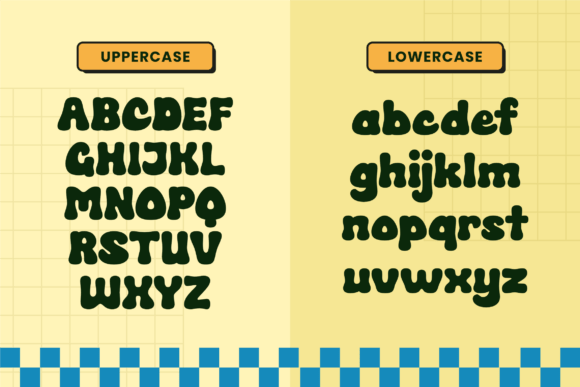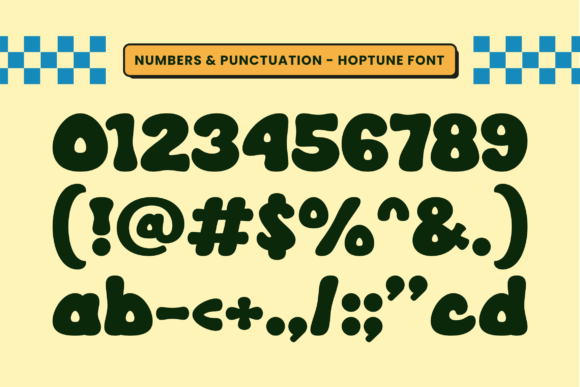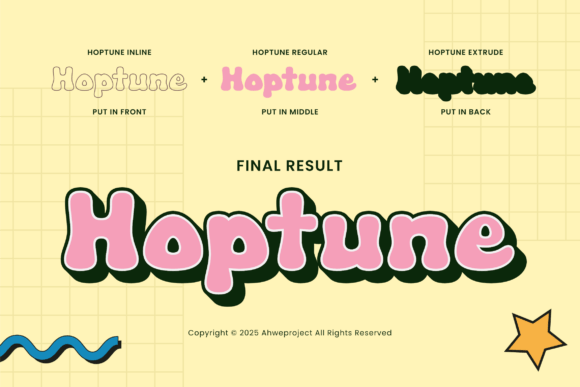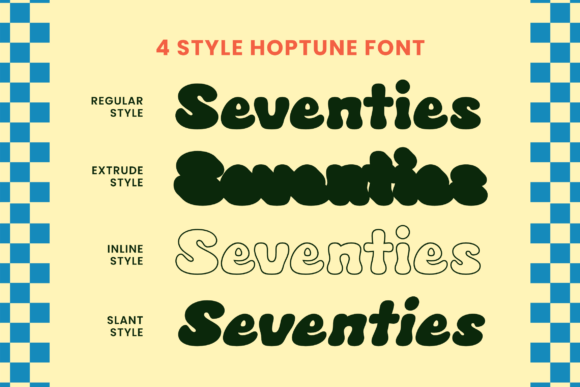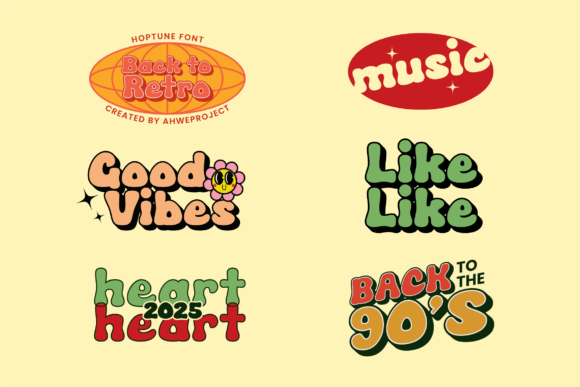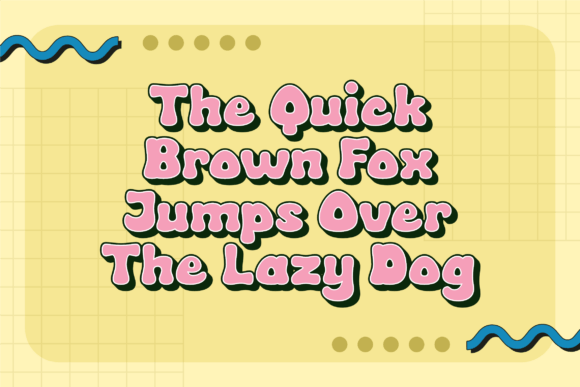
The Perfect Blend of Nostalgia and Fun: Introducing Hoptune Font
Do you remember the thrill of rummaging through your grandparents’ attic, uncovering old records and vinyls, and feeling like you’ve stumbled upon a treasure trove of forgotten memories? For designers, that feeling can be recreated with the right font – and we’re excited to introduce the Hoptune Font, a vibrant retro bold font that captures the charm of the ’70s and ’90s in a fun, bubbly style.
With its chunky curves, playful vibe, and bold shadow, Hoptune Font is the perfect addition to any design project. Whether you’re creating branding, posters, packaging, or children’s projects, this font is sure to bring a pop of joyful energy to your work. As a designer, you know the importance of finding the right font to elevate your design – and Hoptune Font is a valuable addition to any design toolkit.
- Unique Characteristics: Hoptune Font features a unique blend of music-inspired and modern design elements, with intricate details and harmonious typography
Hoptune Font Review
Hoptune Font is a unique and visually appealing font that catches the eye. Here are some of its standout features:
- ✨ Distinctive lettering style that adds a touch of whimsy and personality to any design
- ✨ Versatile in its applications, suitable for use in logos, branding, advertising, and digital media
However, like any font, Hoptune has its limitations:
- ⚠️ Limited availability in certain font styles, such as bold or italic versions
- ⚠️ May not be suitable for use in formal or professional settings, where a more traditional font is preferred
- ⚠️ Can be difficult to read in certain font sizes or resolutions, which may impact its usability in certain contexts
Overall, Hoptune Font is a fun and creative option for designers looking to add some personality to their work. While it may not be the best choice for every project, it’s a great tool to have in your toolkit and can be a great way to add some visual interest to your designs.
The Hoptune font is ideal for creative and playful projects, such as:
– Music festival or concert posters
– Social media graphics and ads
– Branding and marketing materials
– Digital art and design projects